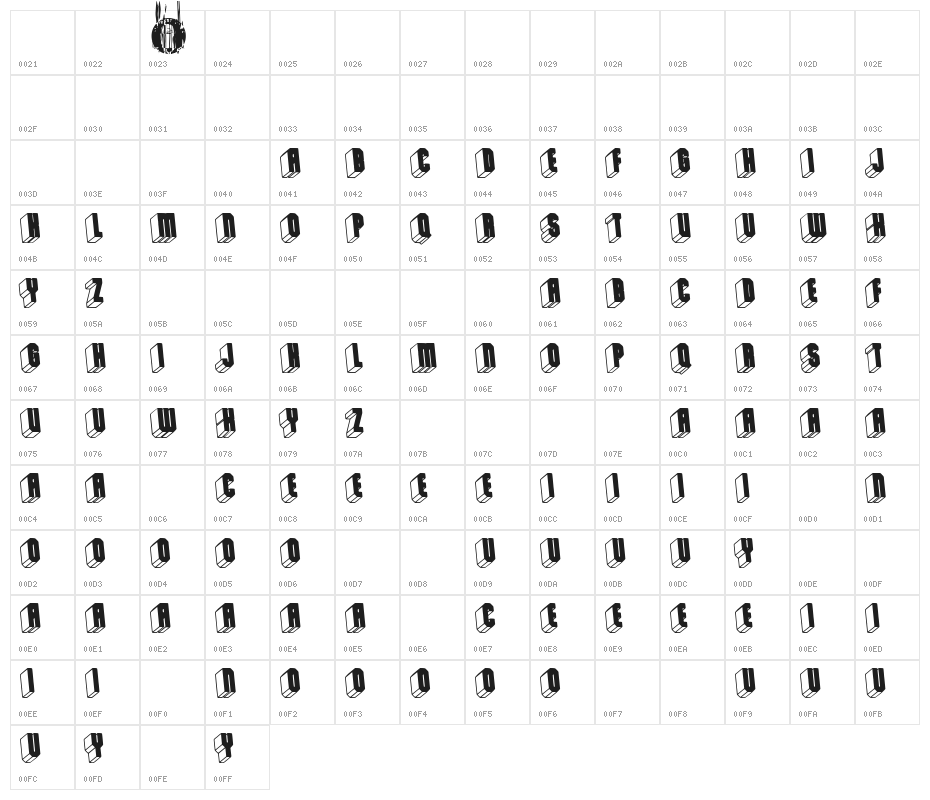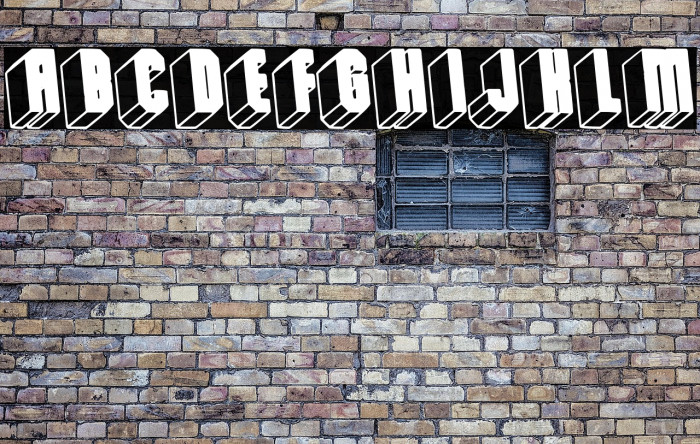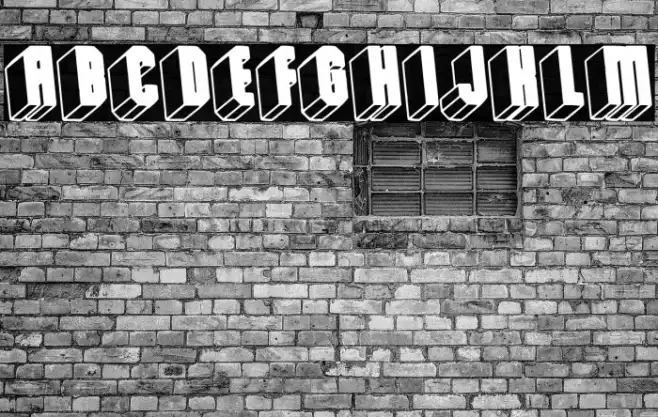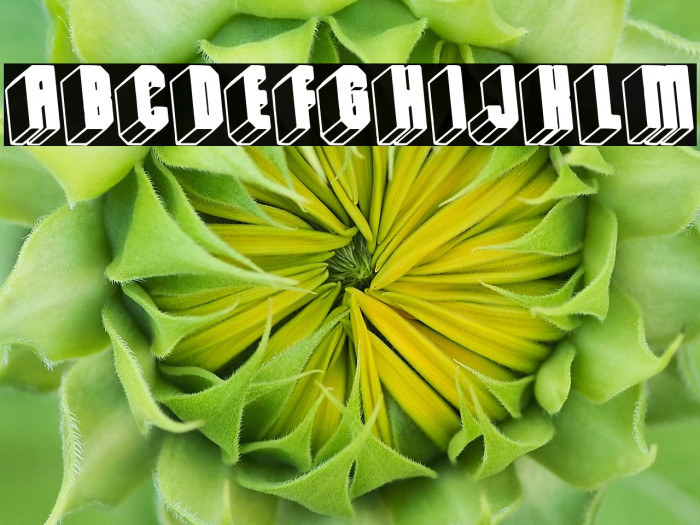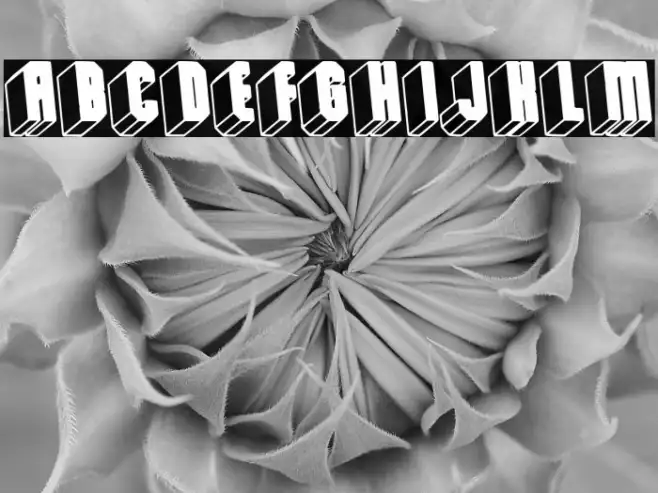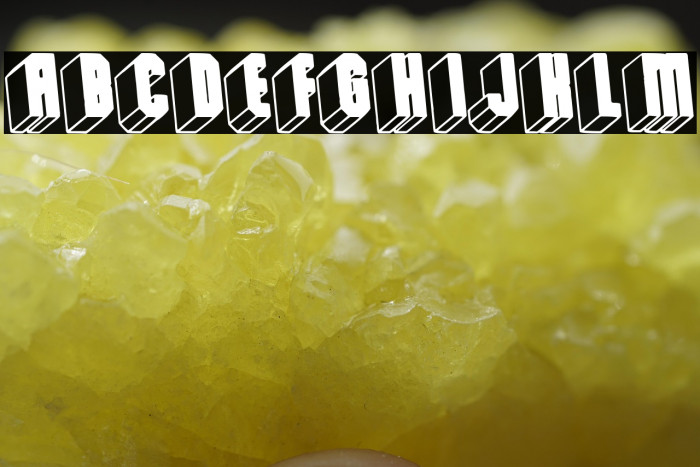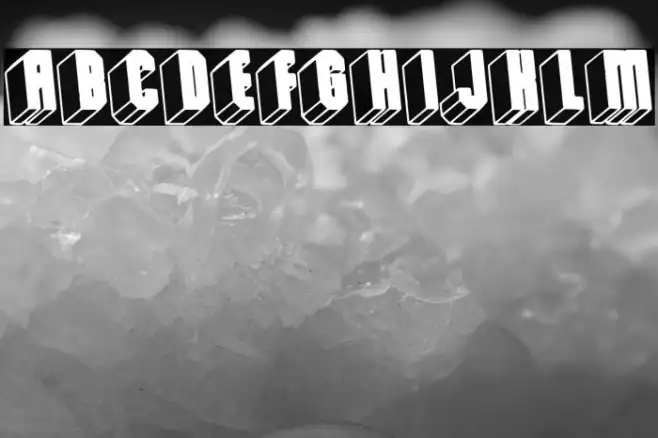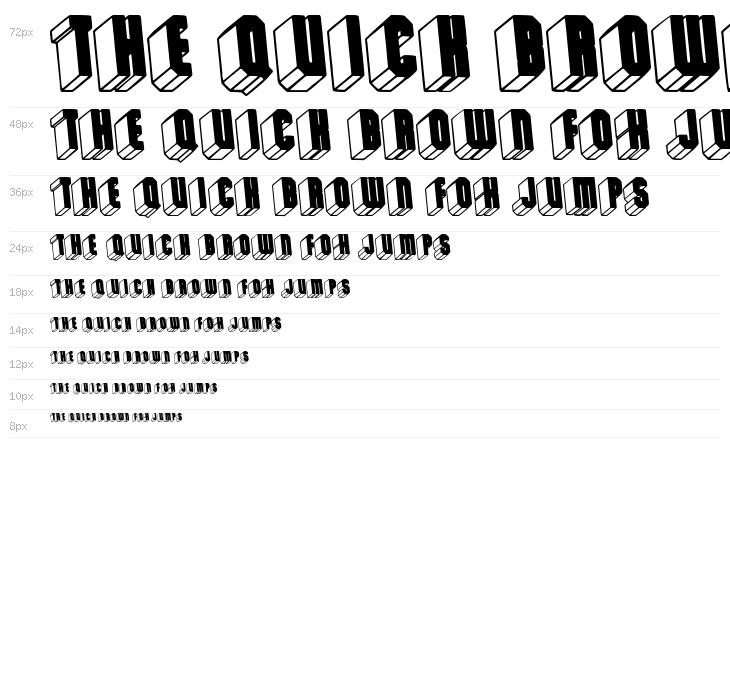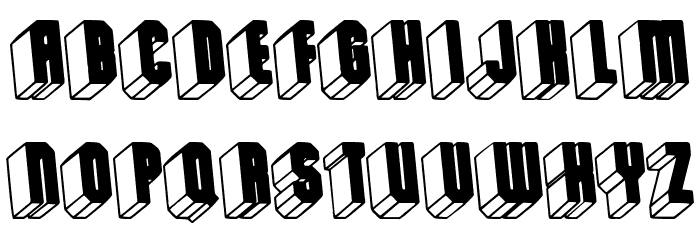
New Dimension Font
New Dimension Description
This font features a bold, three-dimensional design that creates a striking visual impact. Each character is crafted with a shadow effect, giving the impression of depth and solidity. The letters are uppercase and have a blocky, geometric style, which enhances their strong and commanding presence. The font's design is reminiscent of retro or vintage aesthetics, making it suitable for projects that require a bold statement. The consistent thickness of the strokes and the uniformity in the shadow angles contribute to its cohesive appearance. The font is ideal for use in headlines, posters, and any design that aims to capture attention with its dynamic and robust style.
| Use Case | Headlines, Posters, Logos |
| Proposed Projects | Ideal for posters, headlines, logos, and any design requiring a bold, eye-catching typeface. |